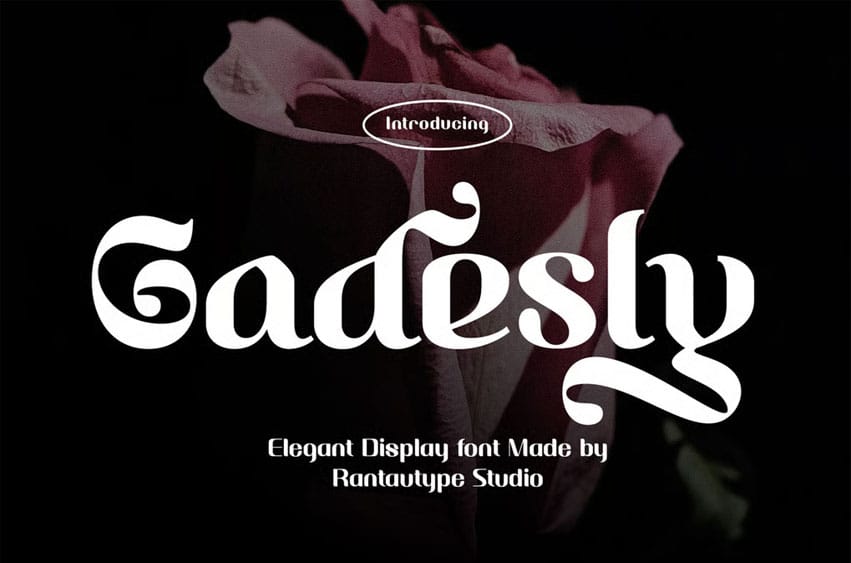
Gadesly Font is an elegant display typeface inspired by blackletter characters.
It is a perfect choice for a variety of creative endeavors, including modern lifestyle designs such as logotypes, titles, covers, branding, invitations, wedding designs, magazines, social media posts, advertisements, printed quotes, product packaging, corporate branding, product designs, labels, photography, watermarks, special events, and any other project that requires a modern touch.